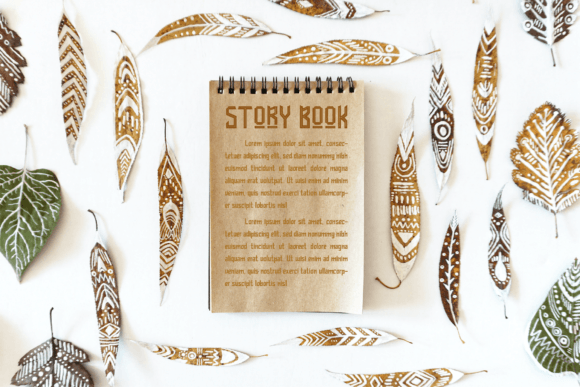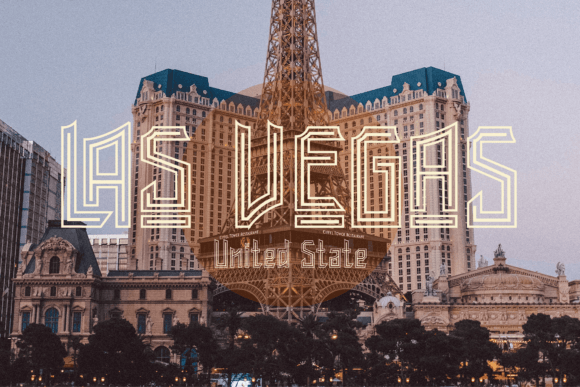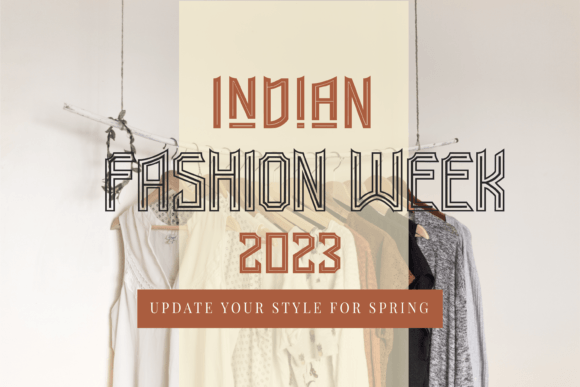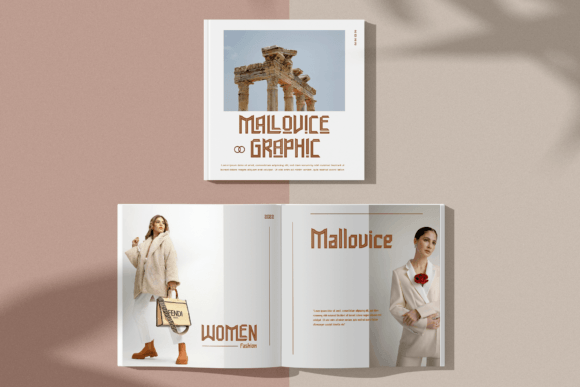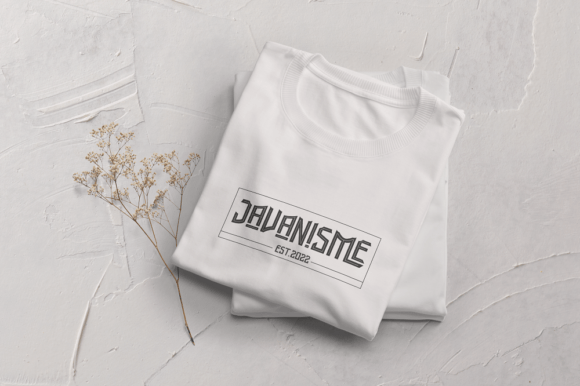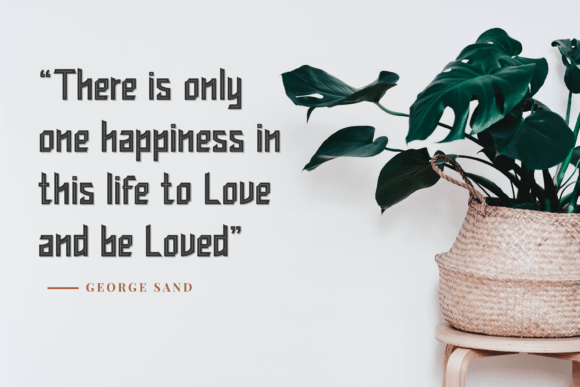
Introduction to Mallovice Font
Mallovice is an ethnic display font made with a unique, strong ethnic character so that users can feel different characteristics Mallovice would be perfect for photography, watermark, social media posts, quotes, cover books, T-shirts, branding, logos & branding, invitation, product designs, label, stationery, product packaging, special events, or anything that needs stunning typography.